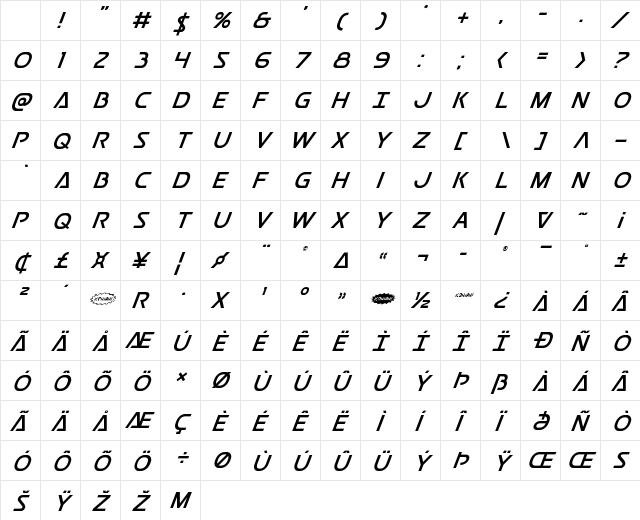
Postmaster is a composed and adaptable typeface that performs quietly and consistently across a wide range of design contexts. The slanted form adds forward momentum and visual energy.